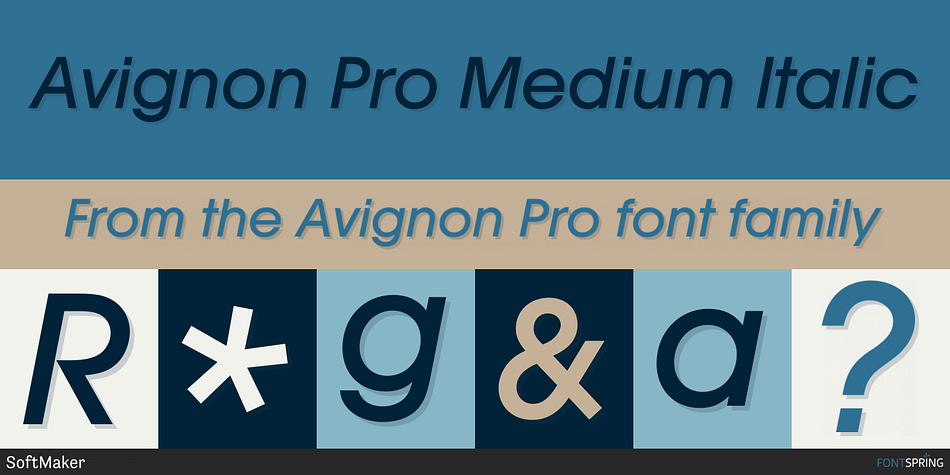
Avignon Pro Medium Italic
Avignon Pro is a sans serif font family. This typeface has nineteen styles and was published by SoftMaker.
Avignon Pro is a geometric sans serif type that is reminiscent of the work from the 1920s German Bauhaus movement. Its distinct look and popularity make it an obvious choice for any list of interesting fonts.